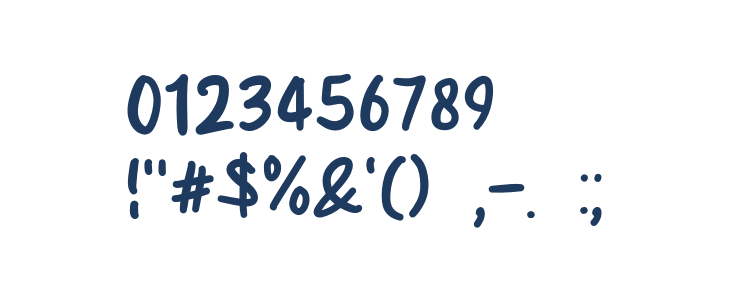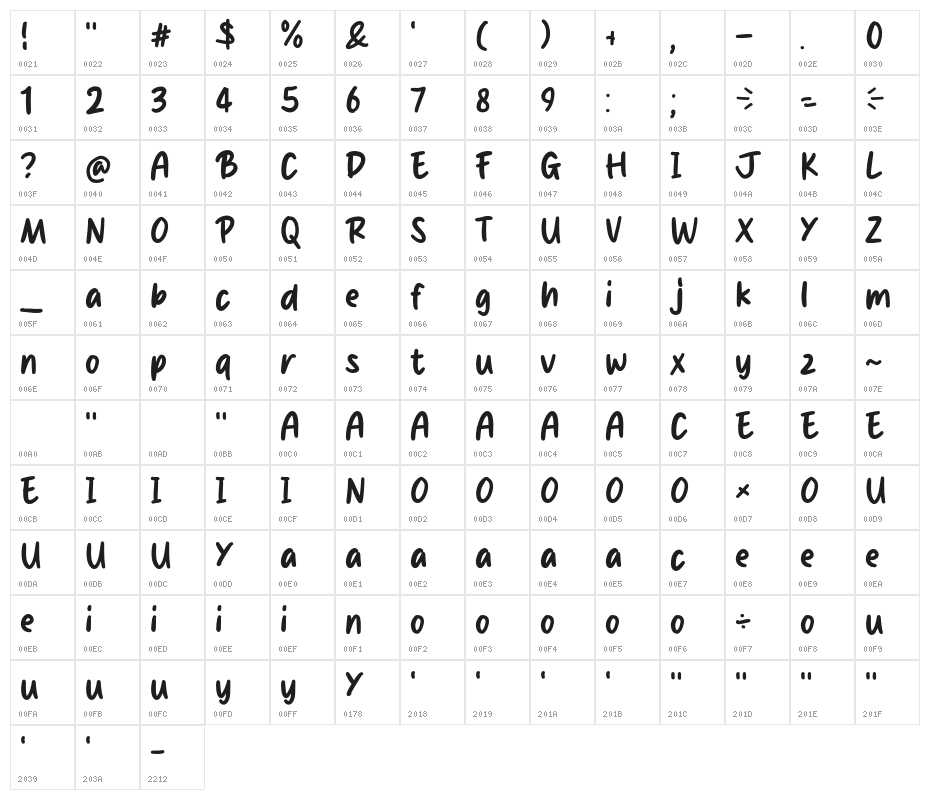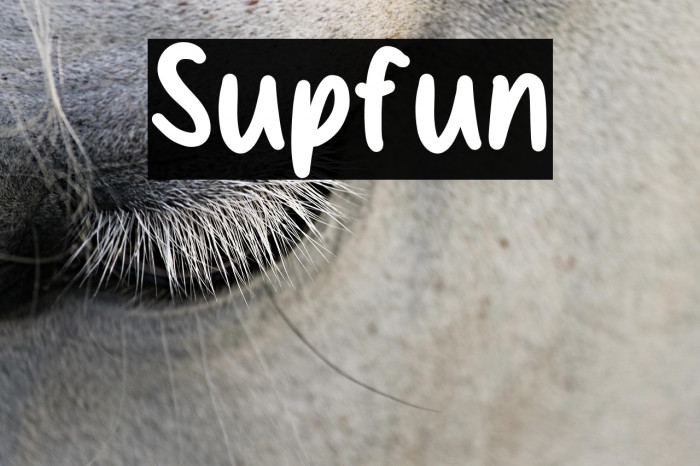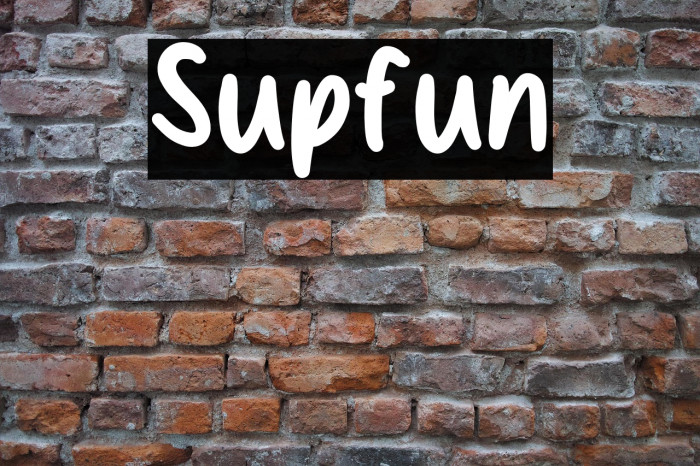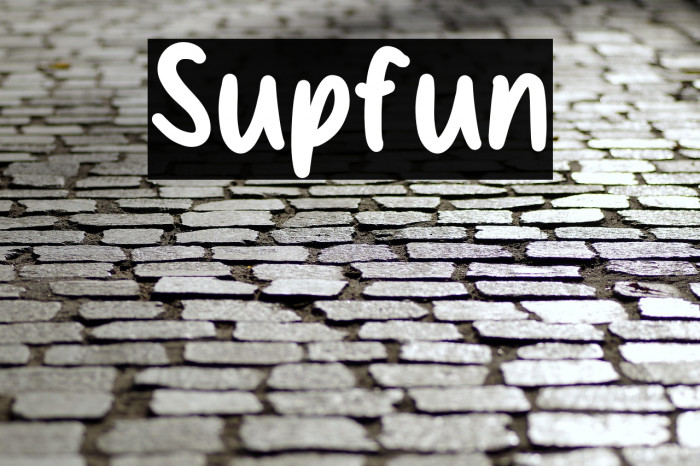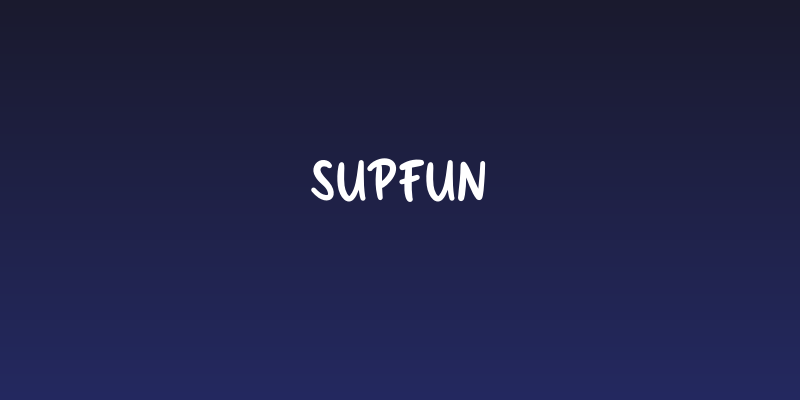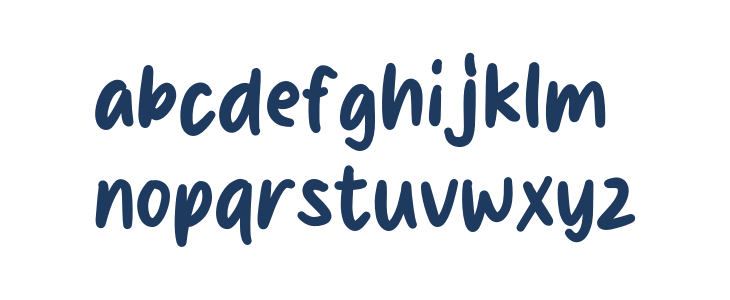
Supfun Font
Supfun Description
This font features a playful and casual handwritten style, characterized by its bold and rounded letterforms. The strokes are consistent in thickness, providing a uniform appearance that enhances readability. The letters are slightly slanted, adding a dynamic and informal touch. The overall design is approachable and friendly, making it suitable for projects that require a personal or creative flair. The spacing between characters is balanced, ensuring clarity and legibility across different sizes. This font's unique style makes it ideal for a variety of creative applications.
| Overall Style | Casual, Playful |
| Use Case | Headlines, Logos, Informal Text |
| Proposed Projects | Ideal for greeting cards, children's books, playful branding, and social media graphics. |